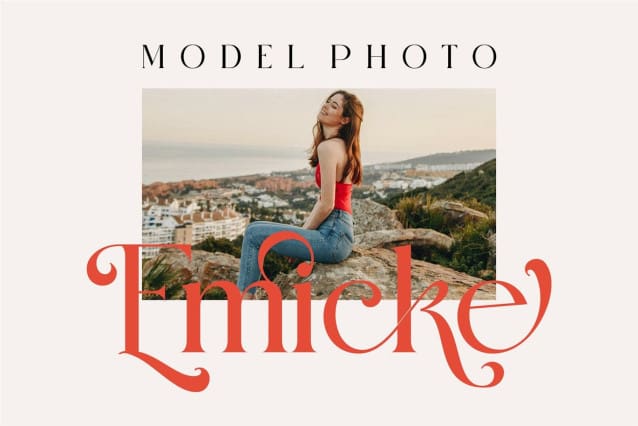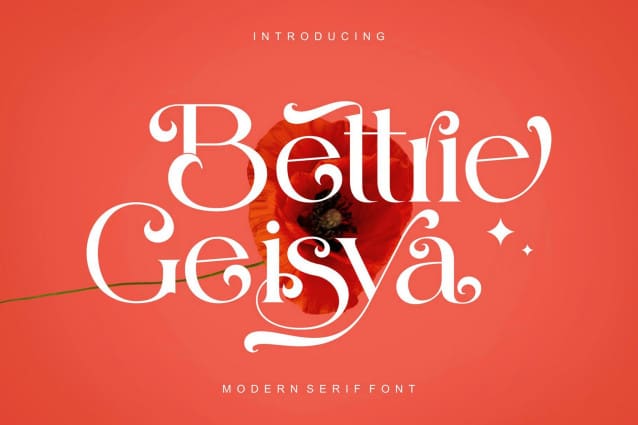
Bettrie Geisya Font
Bettrie Geisya Font, modern serif logo inspired by famous minimalist logo, perfect for template design, brochure, video, advertising branding, logo, invitation, layout, elegant craft, beauty design, etc.